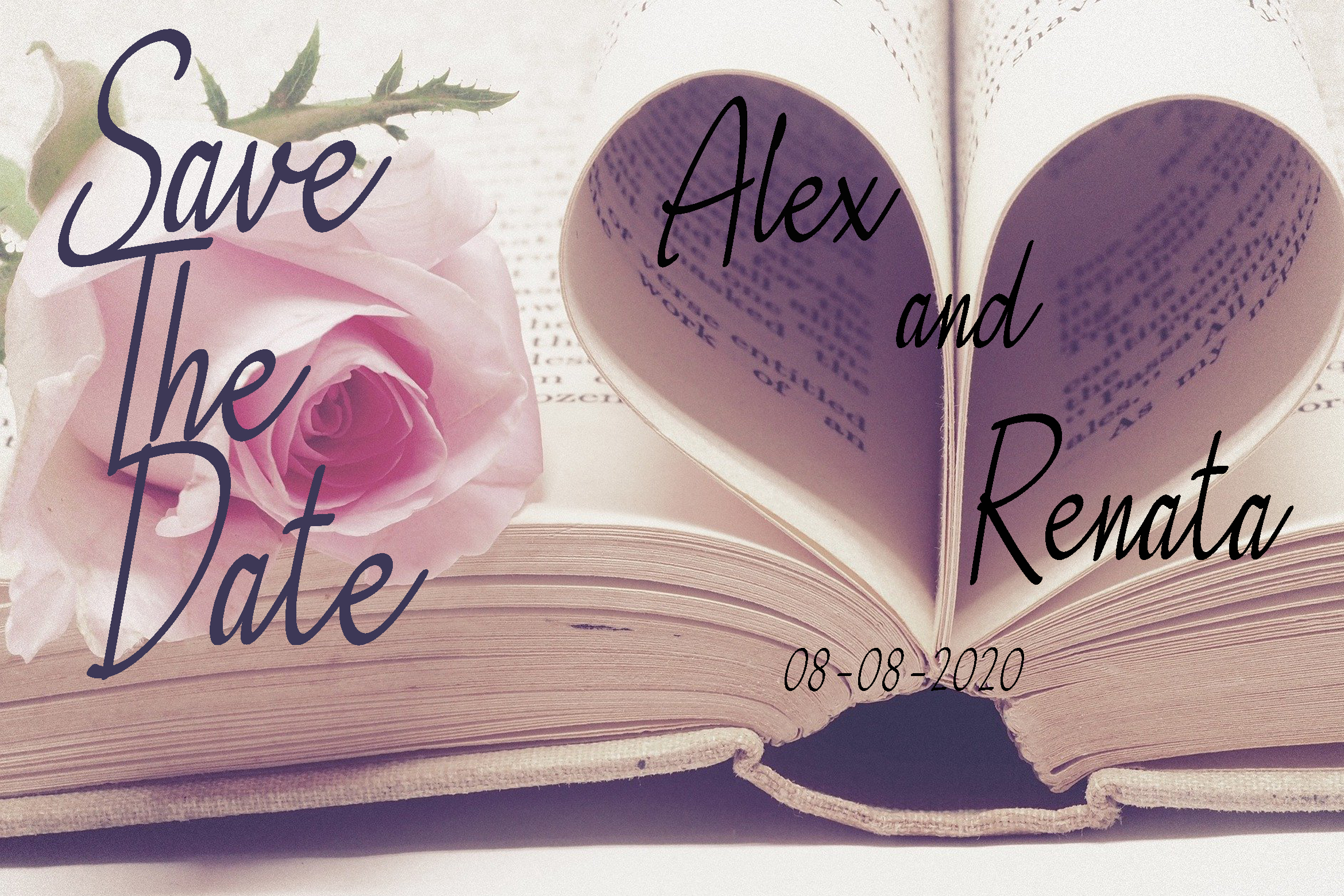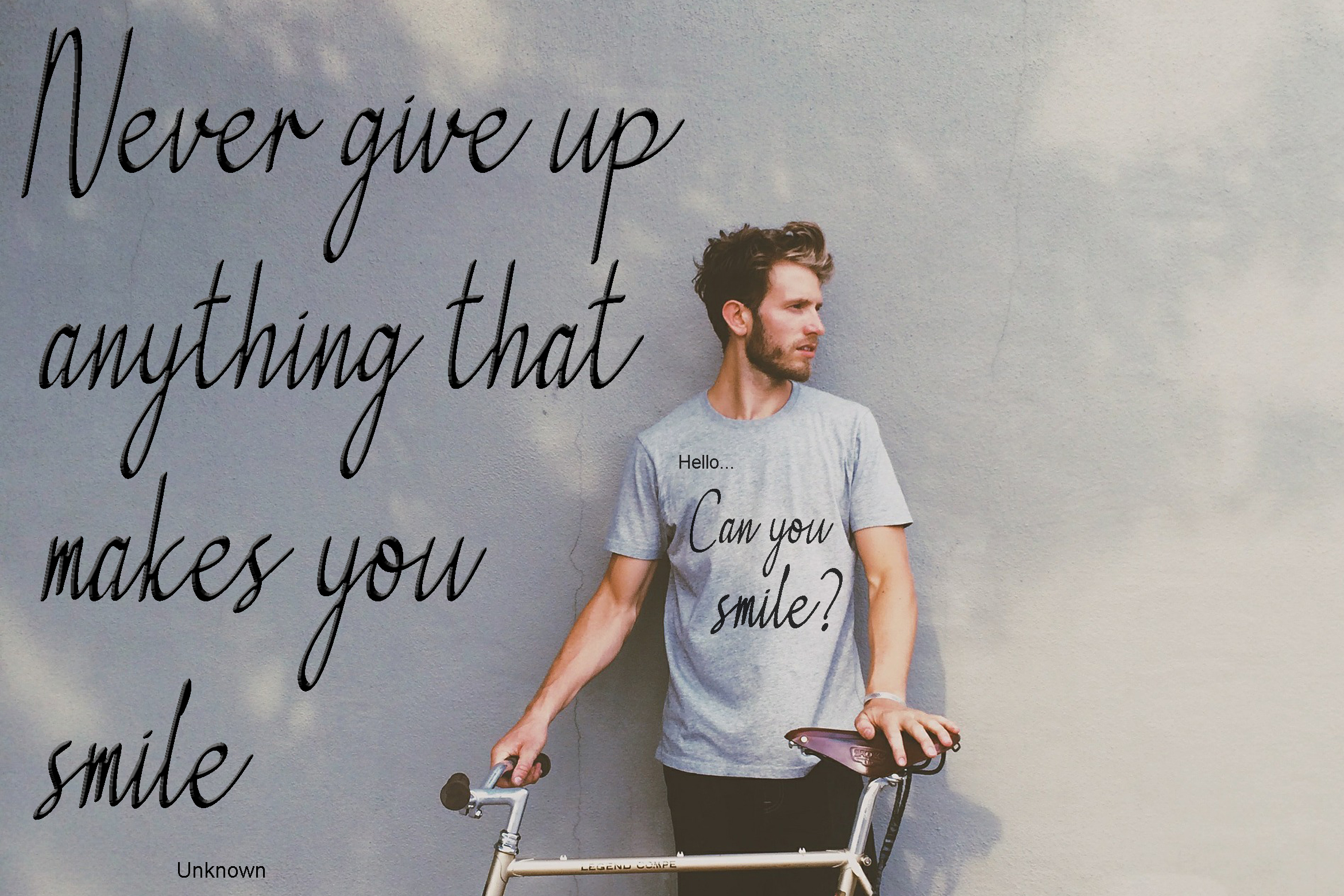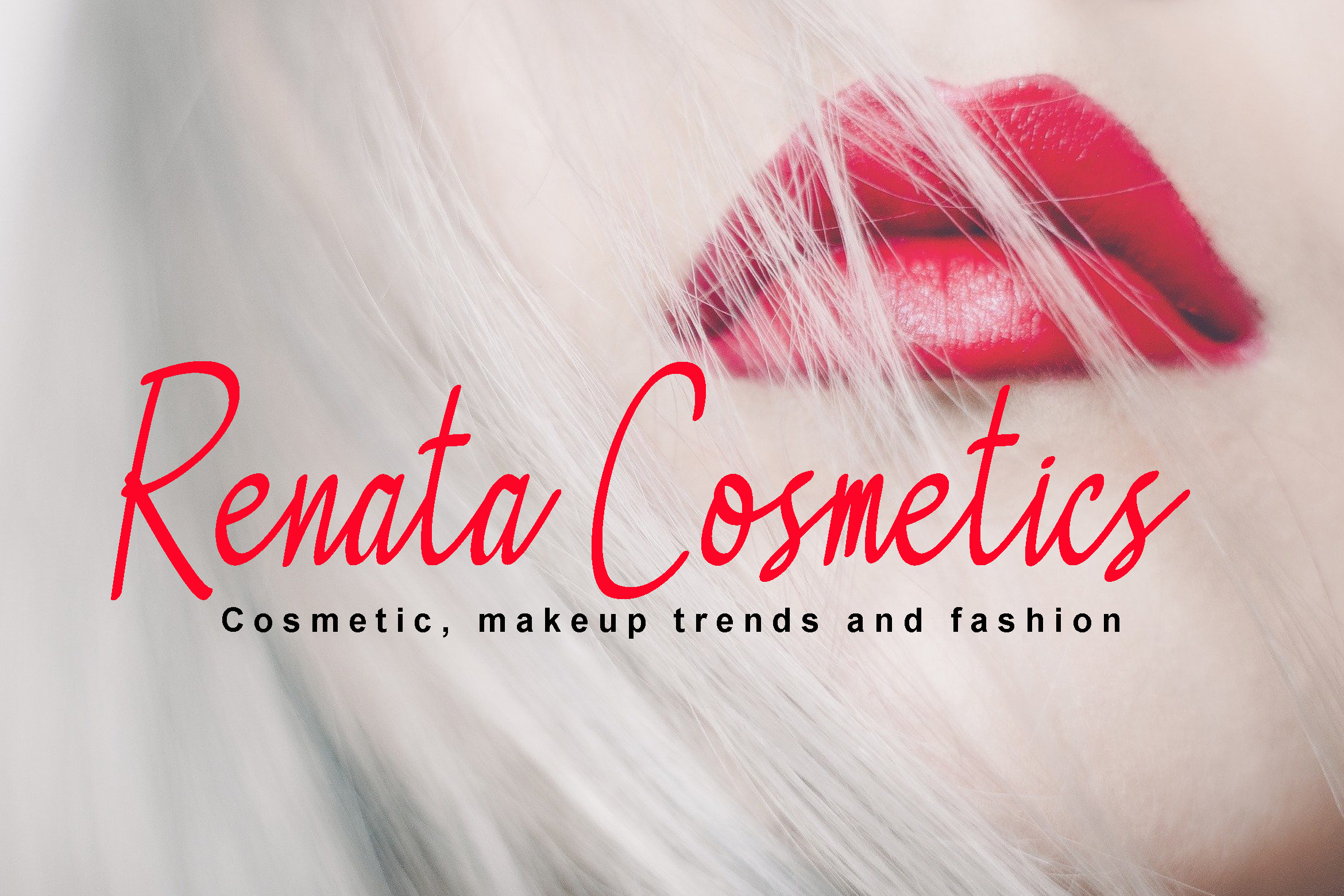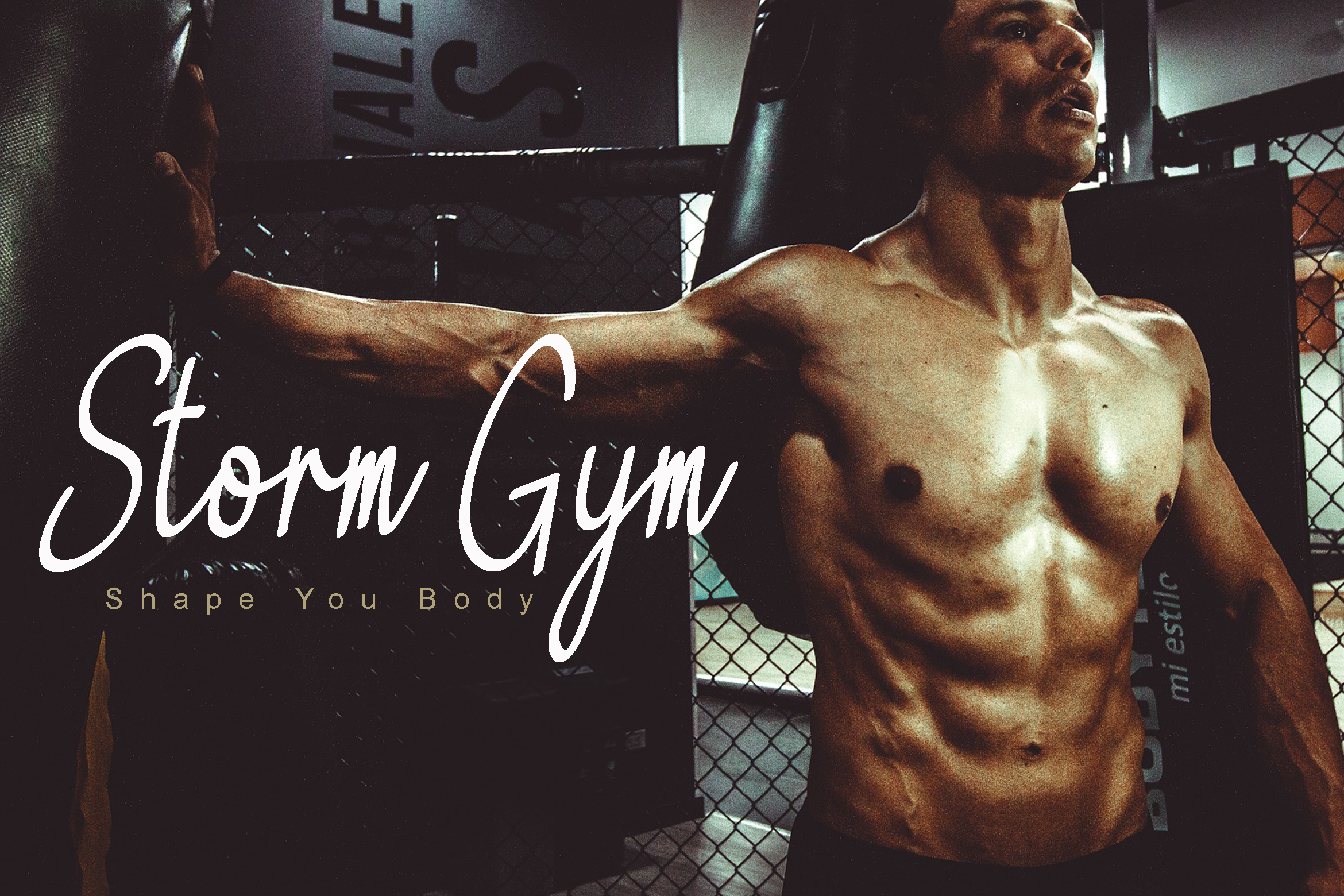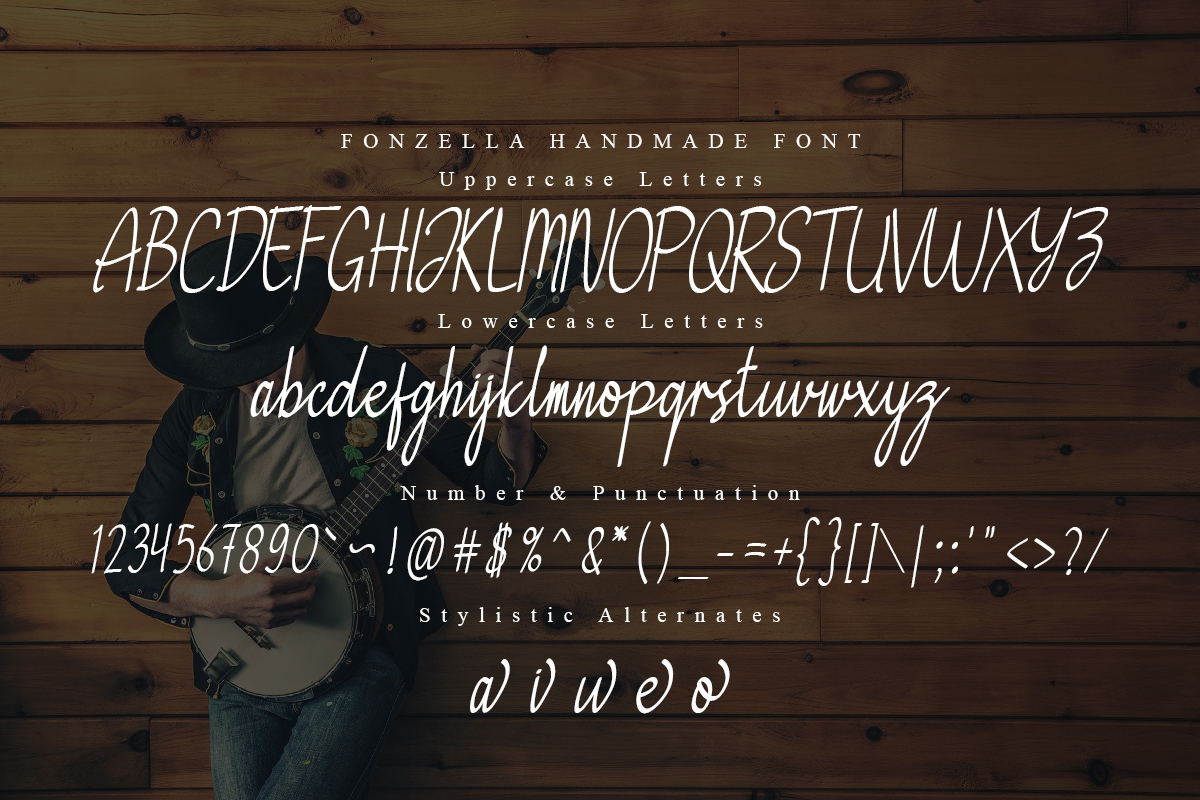
Fonzella is a handwritten font. It’s perfect for branding projects, logos, wedding designs, social media posts, advertisements, product packaging, product design, labels, photography, watermarks, invitations, stationery, and other projects that require handwritten script tastes.